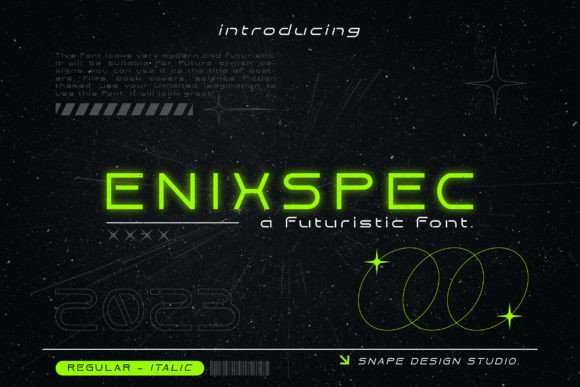
In the vast expanse of digital creation, where ideas take form and visual narratives unfold, there lies a font family destined to ignite your creative cosmos: Enixspec. A display font that transcends the boundaries of convention, Enixspec embodies the essence of innovation, propelling your designs to new heights of brilliance.
With its sleek, contemporary lines and dynamic curves, Enixspec epitomizes the seamless fusion of technology and artistry. Each character, meticulously crafted by the visionary hands of snapedsgn, radiates with an otherworldly charm, evoking the allure of distant galaxies and unexplored dimensions.
Embrace Enixspec as your font of choice and embark on a typographic odyssey where imagination knows no bounds. Whether you're a designer crafting a sci-fi masterpiece, a brand architect shaping a tech empire, or an artist seeking a distinctive voice, this font family will elevate your creations to unparalleled heights.
Immerse yourself in the captivating aura of Enixspec, where innovation meets aesthetics, and experience the transformative power of typography. Its versatility extends beyond earthly realms, effortlessly adapting to a myriad of projects, from captivating logos that command attention to eye-catching headlines that leave a lasting impression.
Personalize your designs with Enixspec's user-friendly customization options, tailoring each letterform to perfectly align with your creative vision. Unleash your inner artist and explore the infinite possibilities, crafting typographic landscapes that resonate with individuality and style.
Join the ranks of design pioneers who have harnessed the power of Enixspec, transforming ordinary words into captivating visual masterpieces. As you navigate the digital realm, let Enixspec be your celestial guide, illuminating your path with its radiant glow.